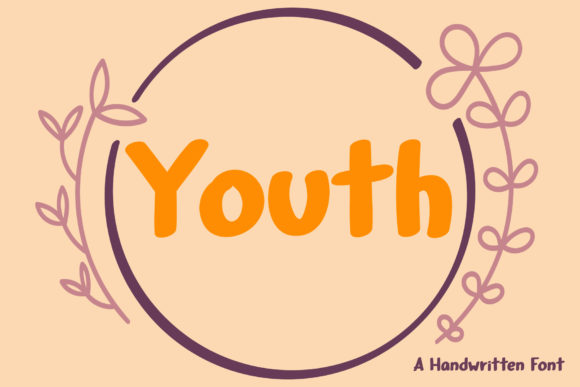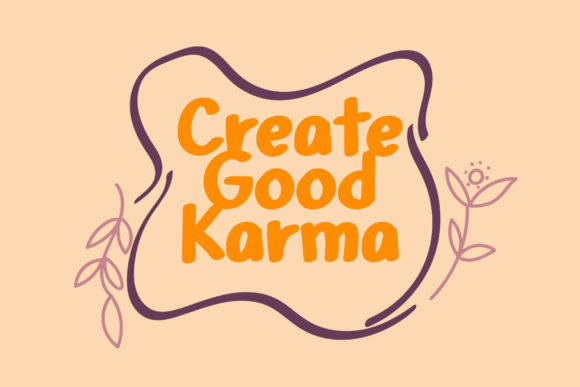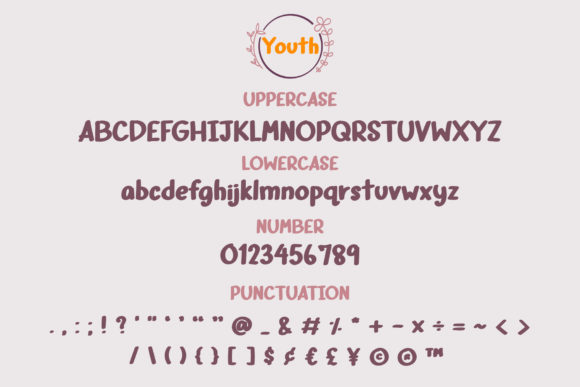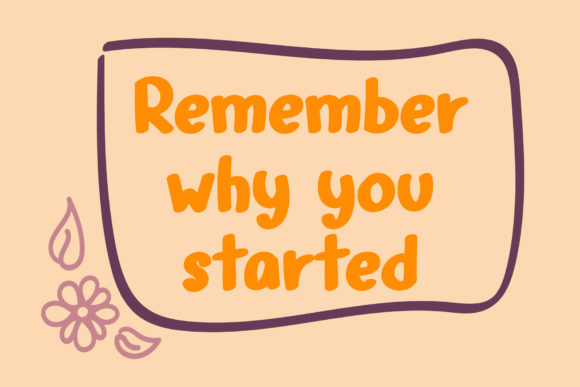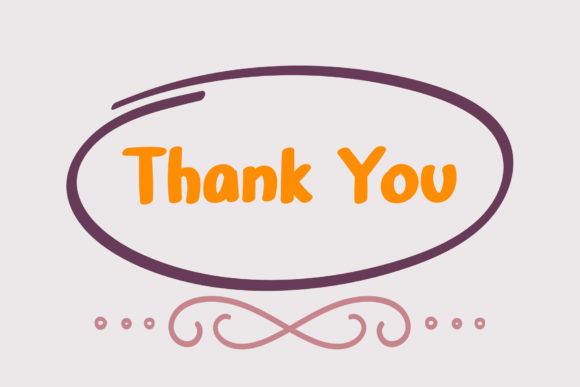
Youth Font
About Youth Font
Youth is a sweet and friendly handwritten font. Get inspired by its unique charm and create amazing greeting cards, cute logos and much more!